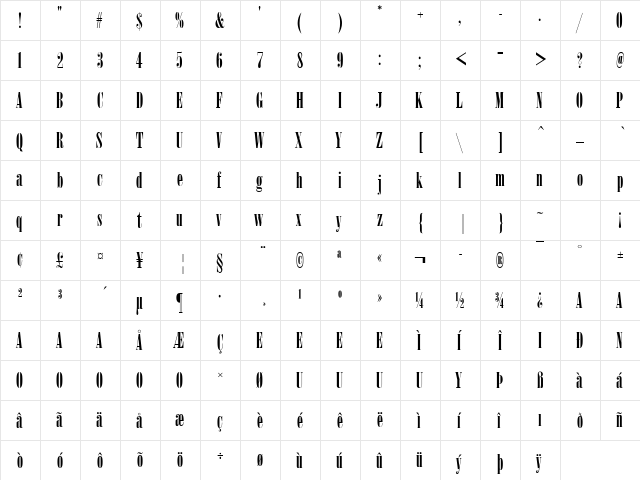
Arsis DReg Regular
Design Context for Arsis DReg Typeface
Arsis DReg takes a measured approach to typography — its balanced proportions and neutral character make it a reliable workhorse for both digital and print work.